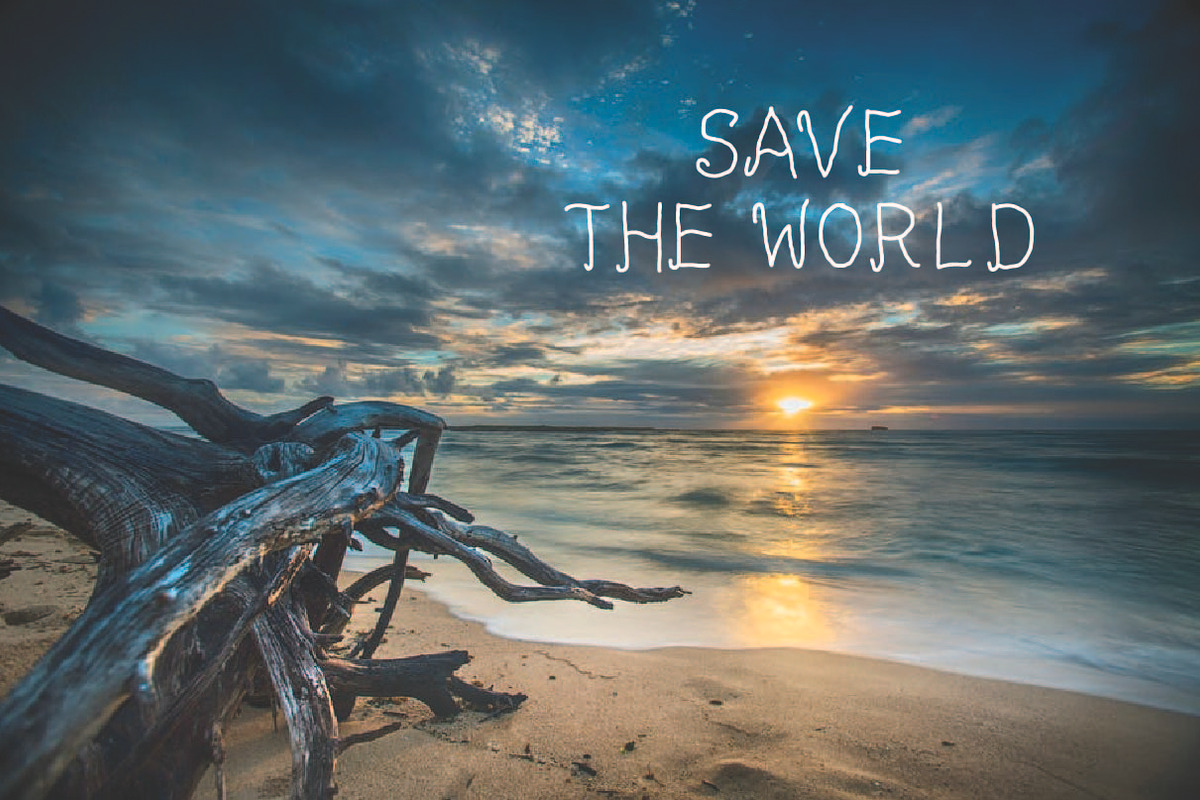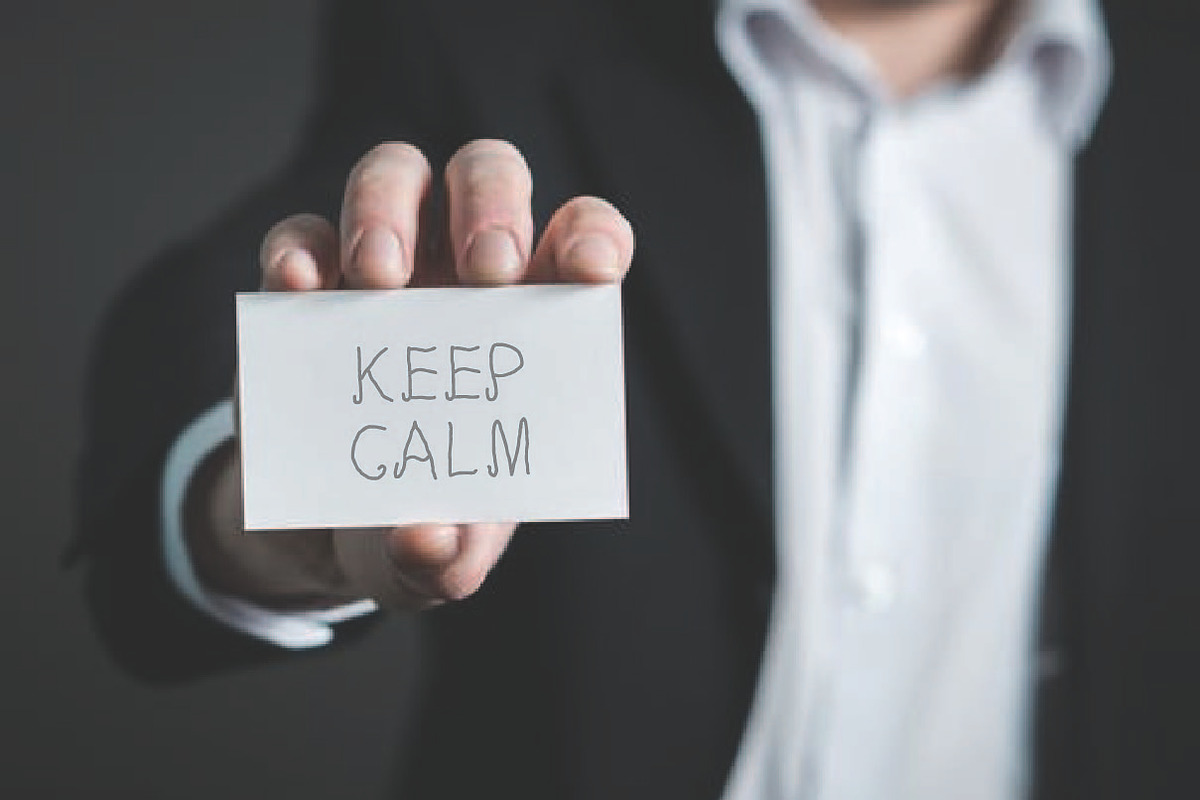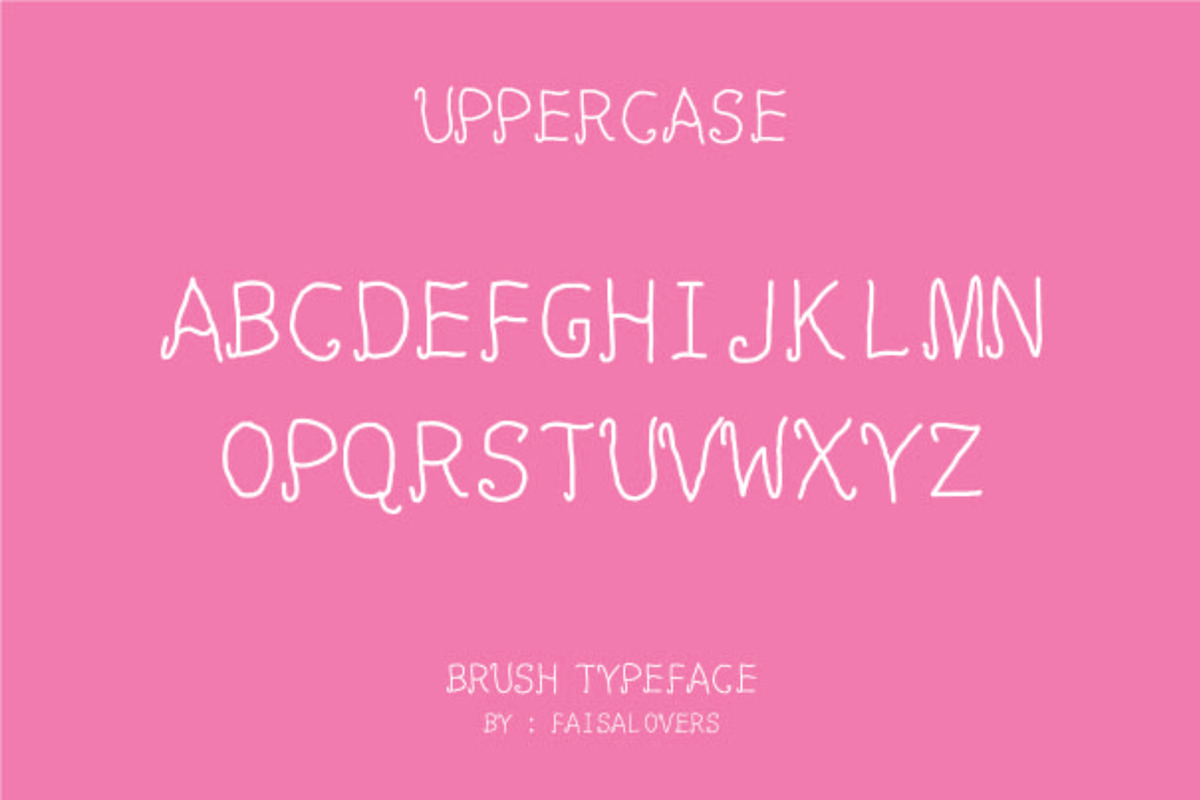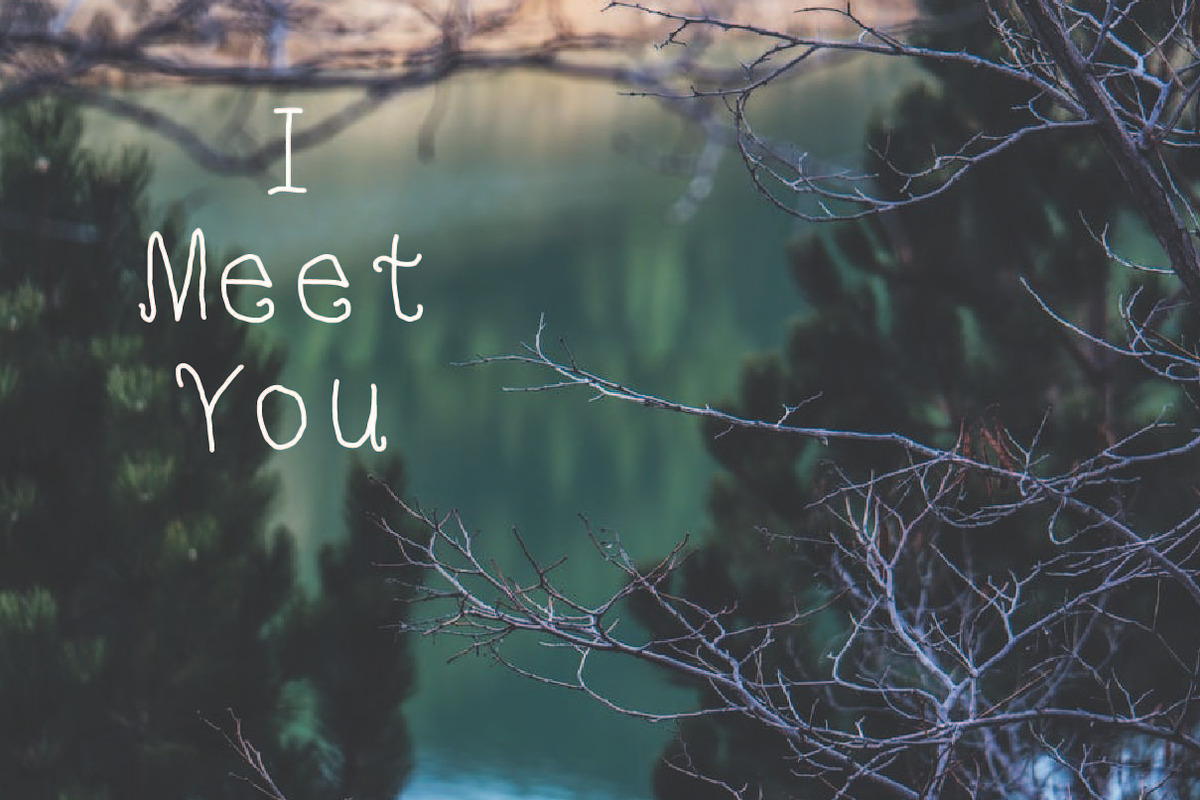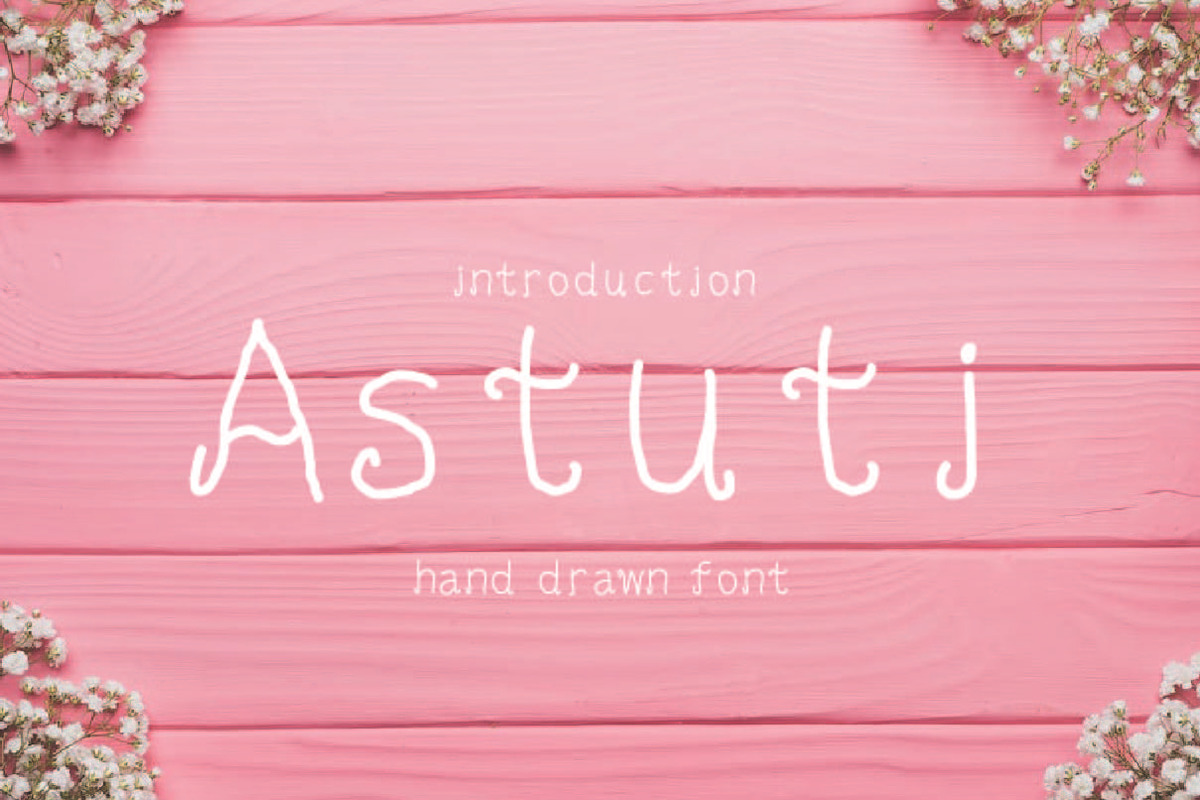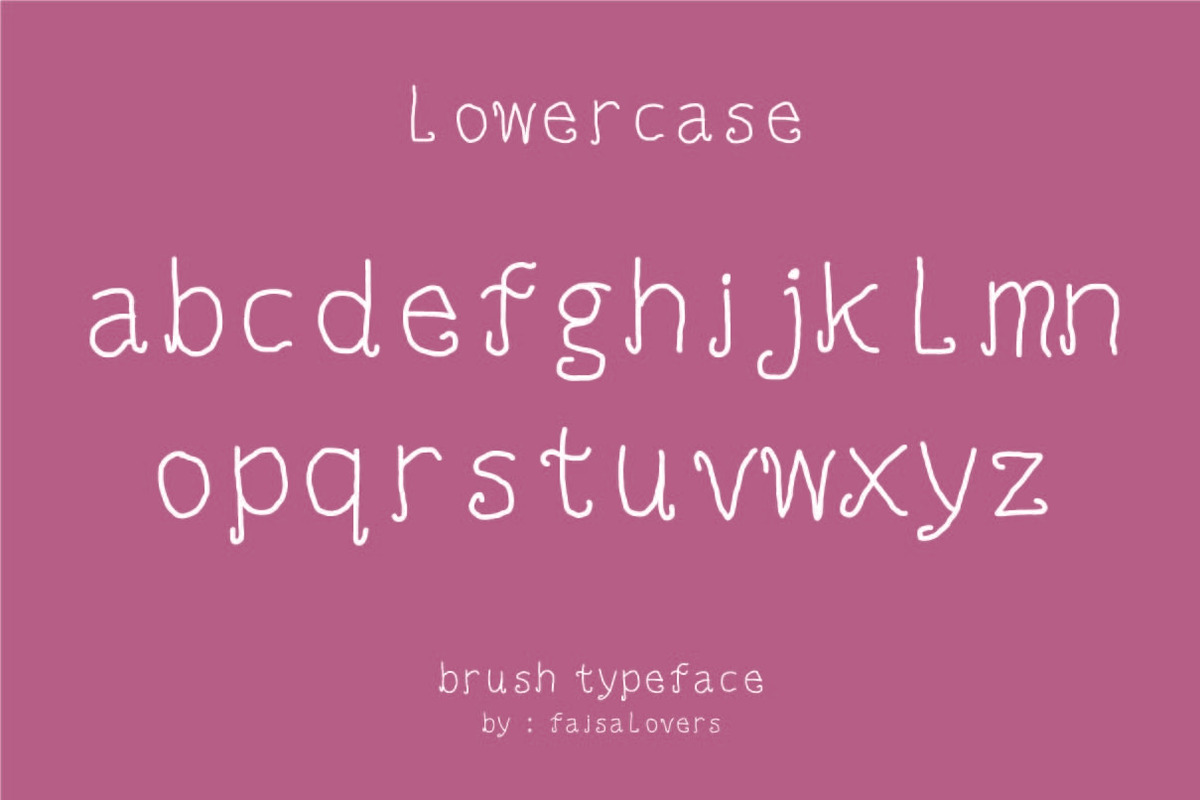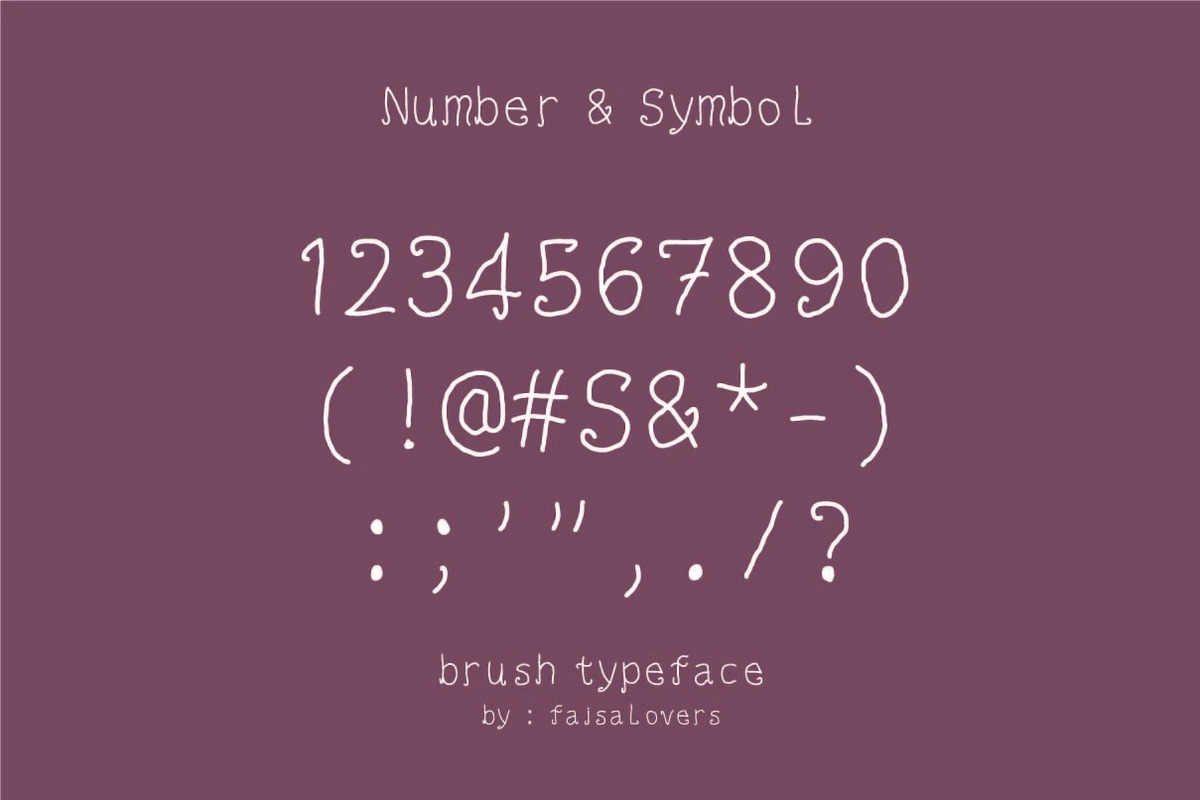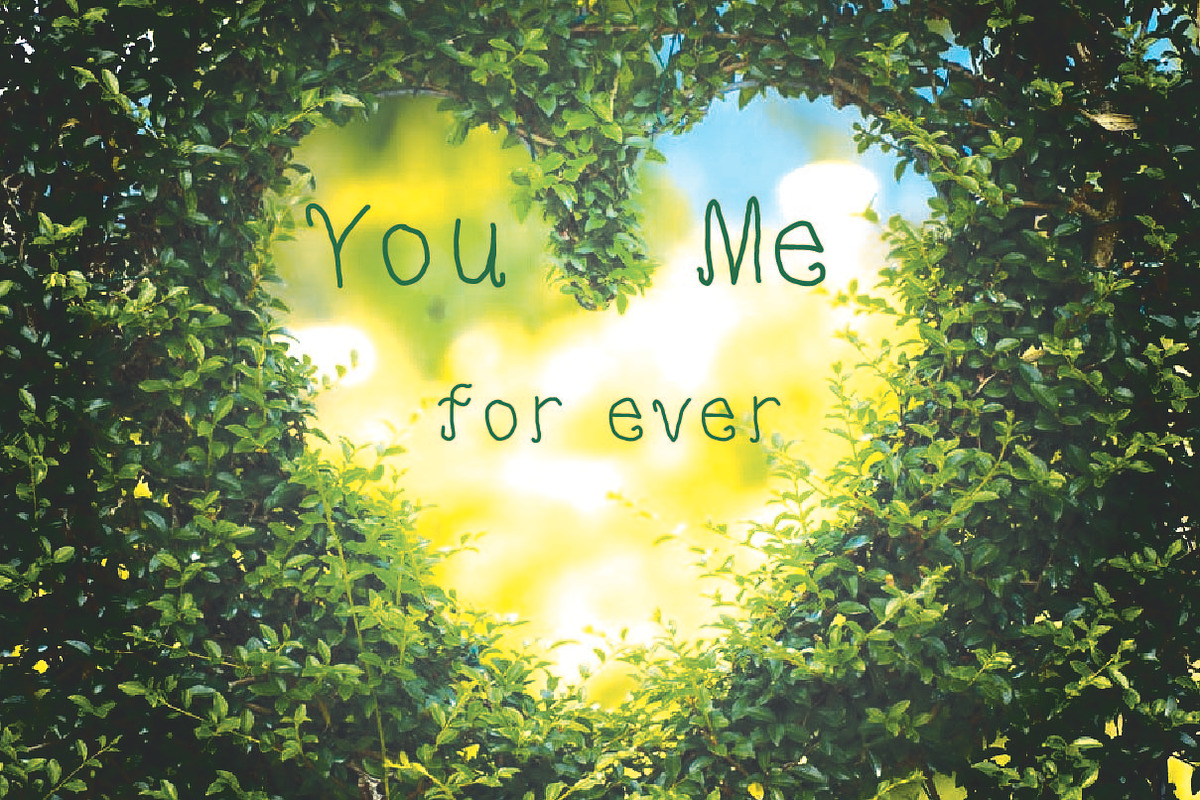
Astuti font
astuti font, i like it.hand writting,school
Why Astuti font is worth a look
Astuti font by khalwa.studio fits naturally into Branding, posters, packaging, typography.